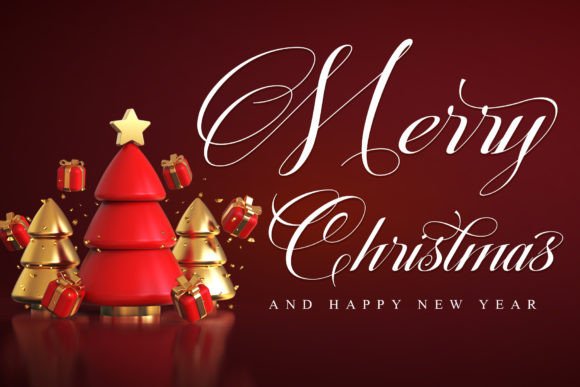
Christmas Calligraphy Font
Christmas Calligraphy is a dazzling formal calligraphy font that exudes sophistication and elegance. Fall in love with its ravishing style and use it to create beautiful designs. This font is PUA encoded which means you can access all the glyphs and ligatures easily!